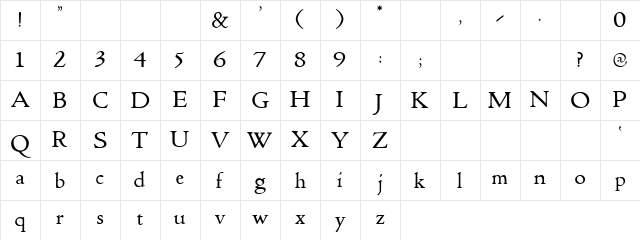
True Golden!" Regular Free Font
True Golden!" Regular
Design Context for True Golden!"
True Golden!" is a composed and adaptable typeface that performs quietly and consistently across a wide range of design contexts.